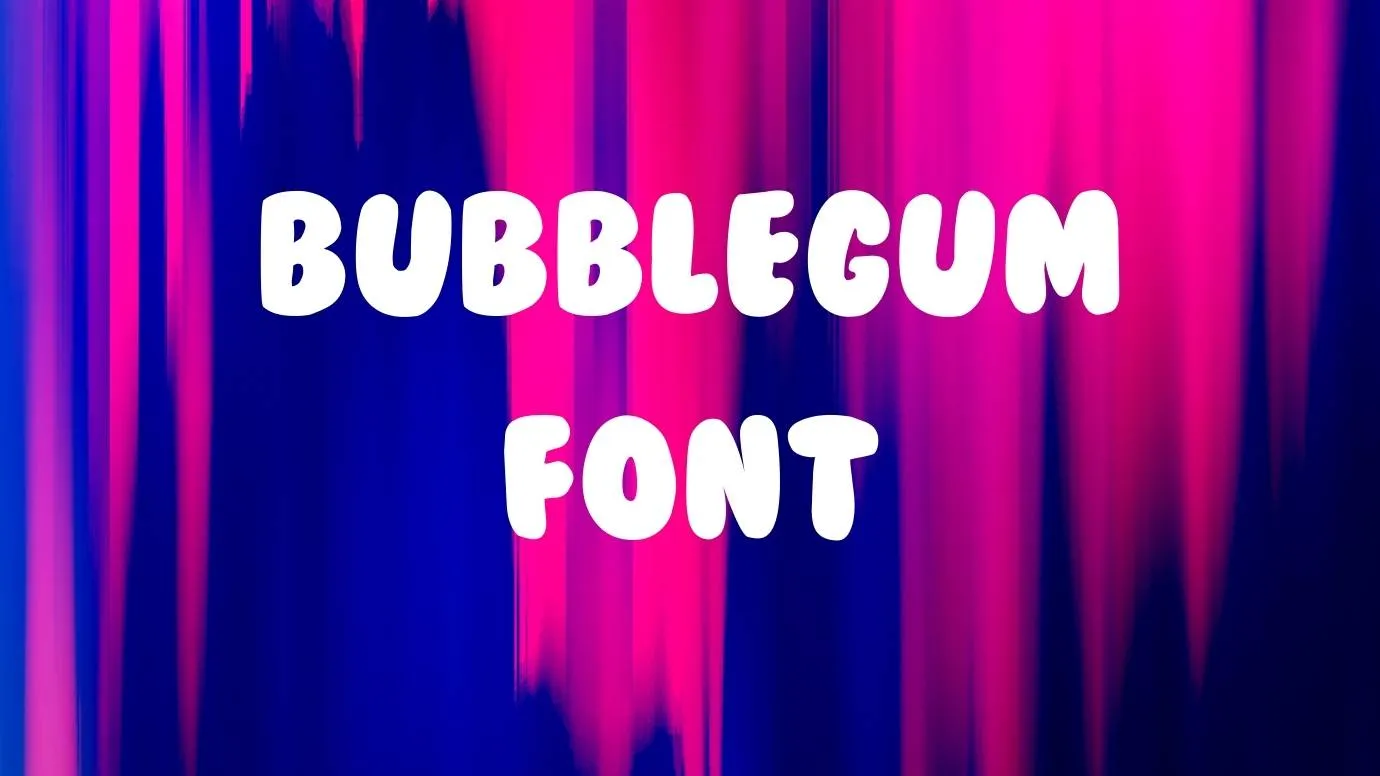
BubbleGum is an appealing, decorative font boasting remarkable attributes. It was created by Thomas W. Ziller. For the first time in 1994, the designer assumed responsibility for this charming and stylish font.
This classy typeface is best for the combination and pairing with other fancy typefaces like Cartoonist Kooky Font. This typeface gives an amazing look to your designs and projects due to its rounded bold letters.
BubbleGum Font